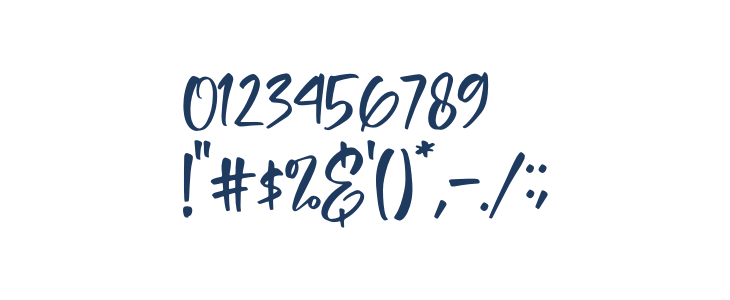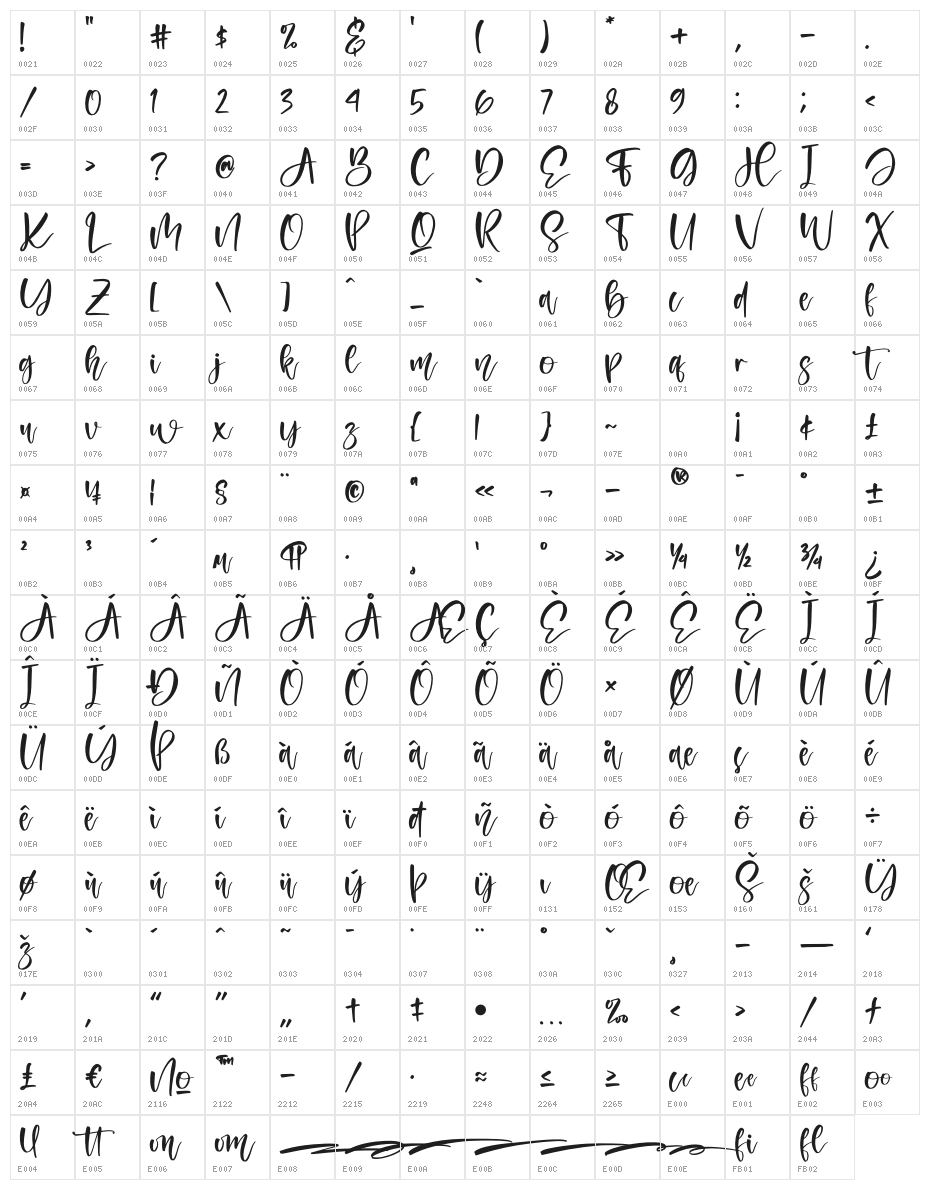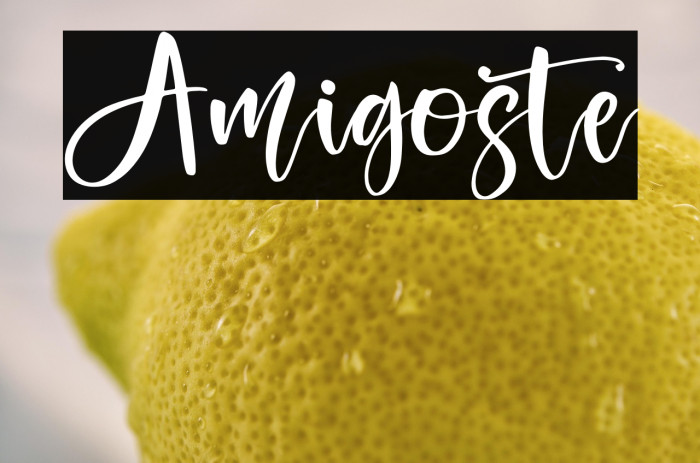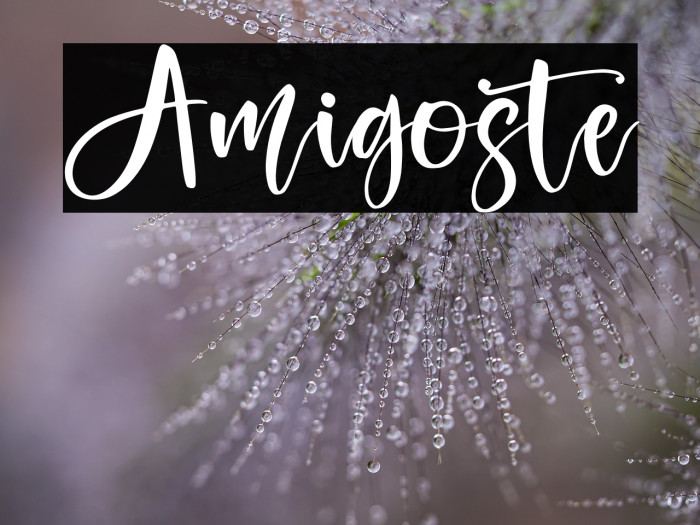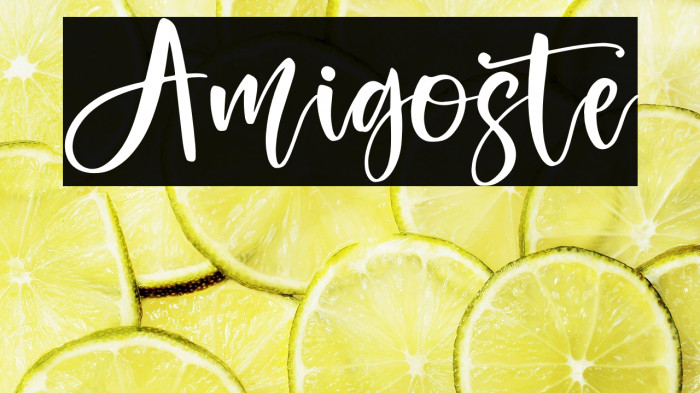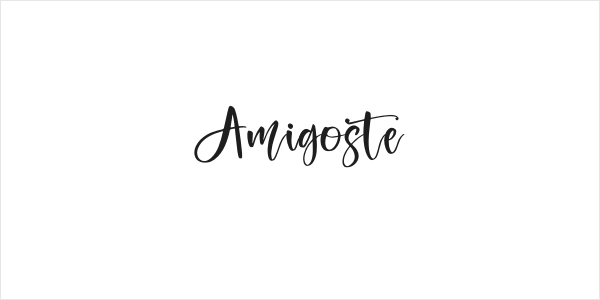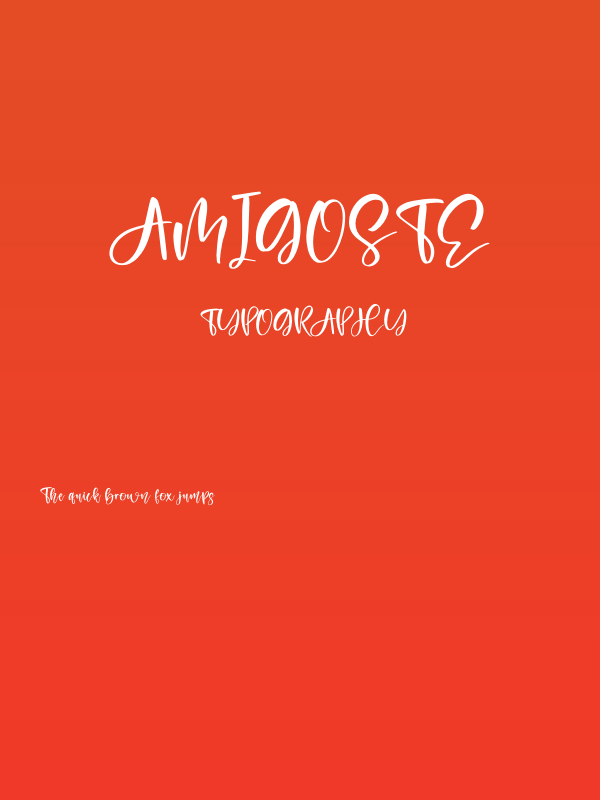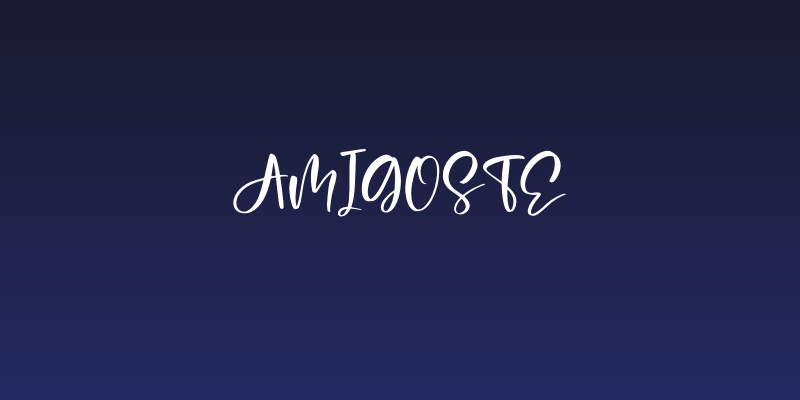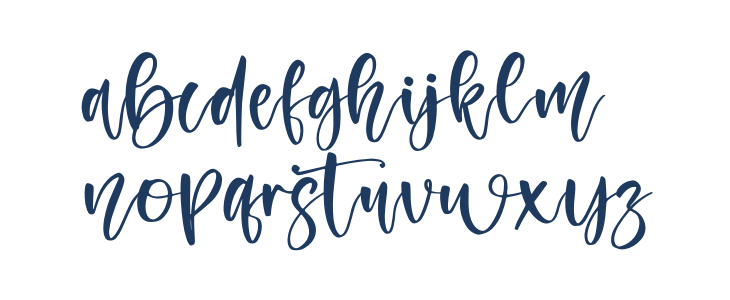
Amigoste Font
Amigoste Description
This font features a lively and expressive handwritten style, characterized by its fluid and dynamic strokes. The uppercase letters are bold and slightly slanted, giving a sense of movement and energy. The lowercase letters maintain a consistent flow, with some characters featuring playful loops and swashes. The numbers are bold and maintain the same energetic style, making them stand out. Special characters are creatively designed, adding to the overall artistic feel. This font is perfect for projects that require a personal and artistic touch, such as invitations, greeting cards, and creative branding.